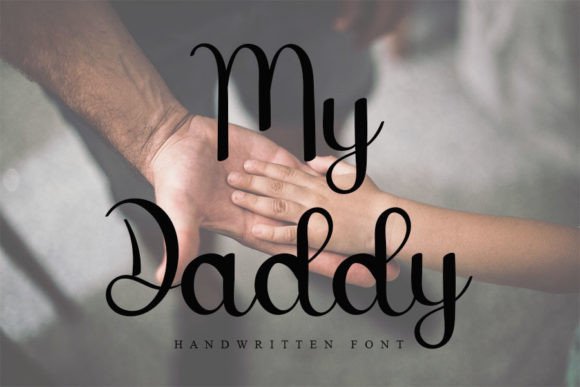
About My Daddy Font
“My Daddy” is a colorful handwritten font that blends elegance with a touch of whimsy. This font is a versatile choice for a variety of design projects, including logos, branding, social media posts, and creative DIY endeavors. Its clean yet slightly quirky design adds a unique and engaging quality to your creative work.
One of the standout features of “My Daddy” is its ability to convey both elegance and a sense of character. The handwritten style of the font adds a personal and authentic feel to your text, making it well-suited for projects that aim to create visually appealing and approachable content.
This font’s versatility allows it to be applied to a wide range of design contexts. “My Daddy” can be used to craft memorable logos and branding materials, inject personality into your social media posts and captions, and infuse a creative and crafty vibe into DIY projects.
Visualize using “My Daddy” for your brand’s logo and how it communicates a sense of elegance and approachability to your audience. Picture incorporating this font into your social media content, making your posts more engaging and visually appealing. When you choose “My Daddy” for your projects, you’re selecting a font that adds a touch of elegance and creativity to your designs.
In conclusion, “My Daddy” is more than just a font; it’s a design asset that brings a sense of elegance and playfulness to your creative projects. Its handwritten style and colorful design make it an ideal choice for a wide range of applications, allowing you to create visually appealing and engaging content. Embrace “My Daddy” as a font that adds a touch of personality and creativity to your work, making it stand out and leave a lasting impression.